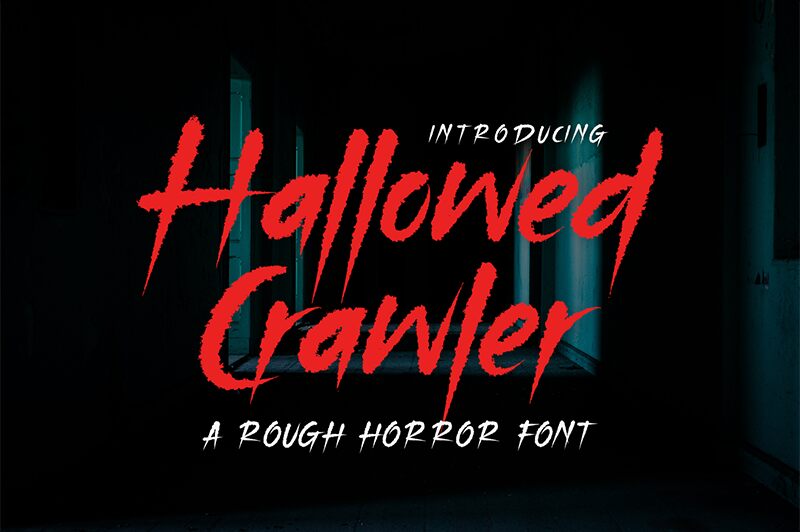
Hallowed Crawler
Hallowed Crawler font by Alpaprana Studio displays all the exciting qualities of Halloween, introducing a horror rough look that can electrify any design. This display font captures the haunt of that special night with an energetic approach and edgy character that seem to crawl their way through each letter. The expressive script style feels raw and modern, further contributing to an innovative aesthetic with great visibility.
Potential project applications of this free techno display font include printing decorations for Halloween parties, creating movie posters, social media posts and banners. It is also useful for blogs which feature horror and where headers are essential in grabbing attention or maybe even book covers. Take advantage of this resource by using it on merchandise packaging like drink containers or make it part of sticker designs.